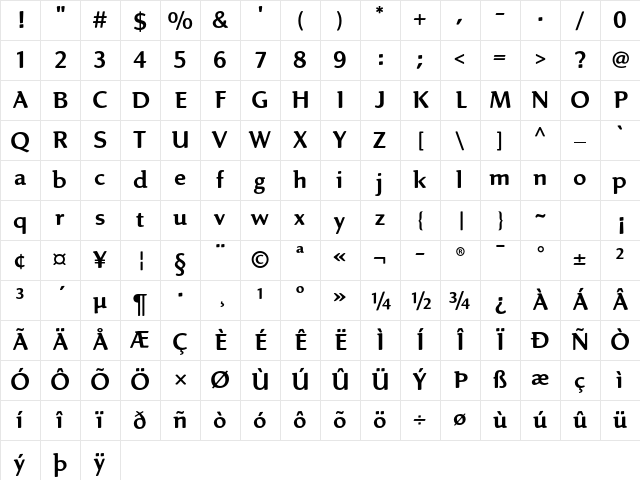
Linex Sweet Std Regular
Linex Sweet Std Family
Design Context for Linex Sweet Std
Linex Sweet Std is a composed and adaptable typeface that performs quietly and consistently across a wide range of design contexts.
Pro Tip: Use Linex Sweet Std in both headline and body roles to test its range before committing to a single application.